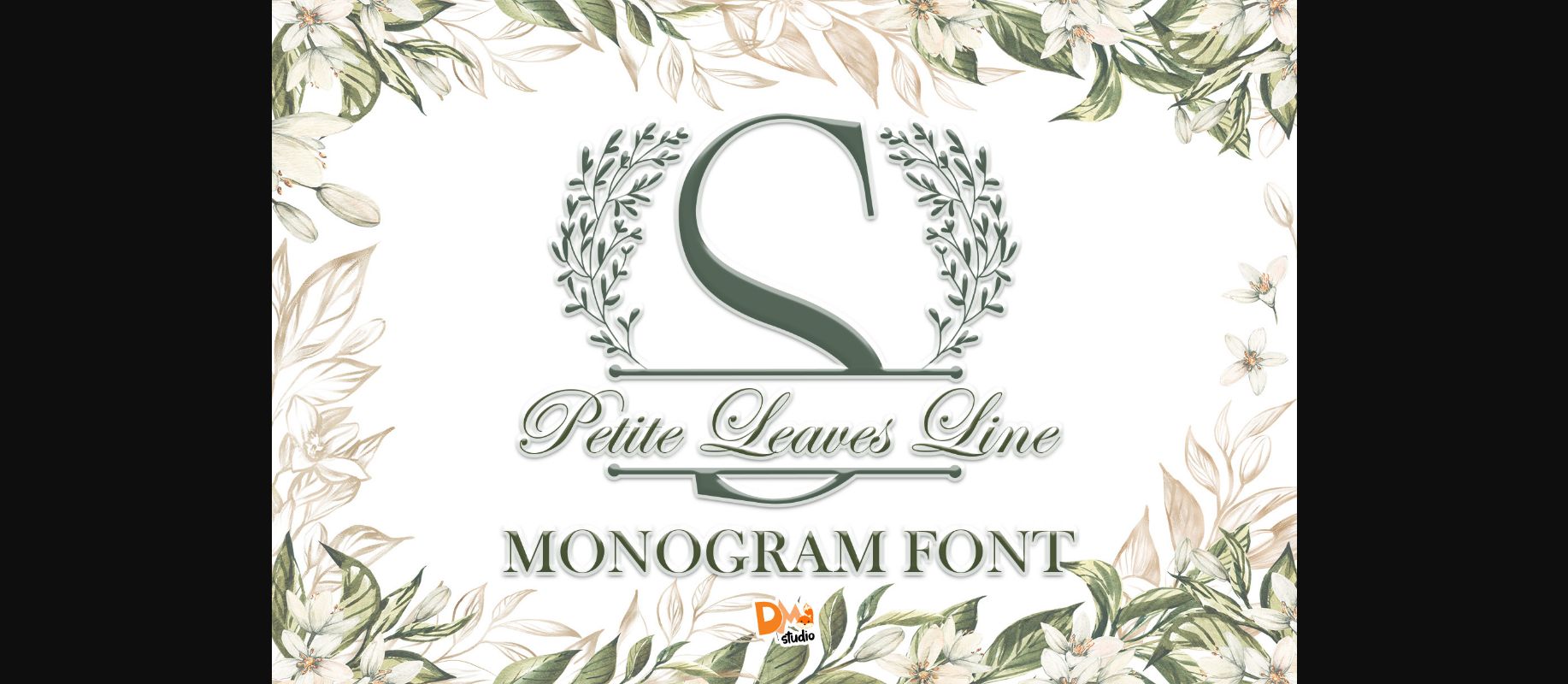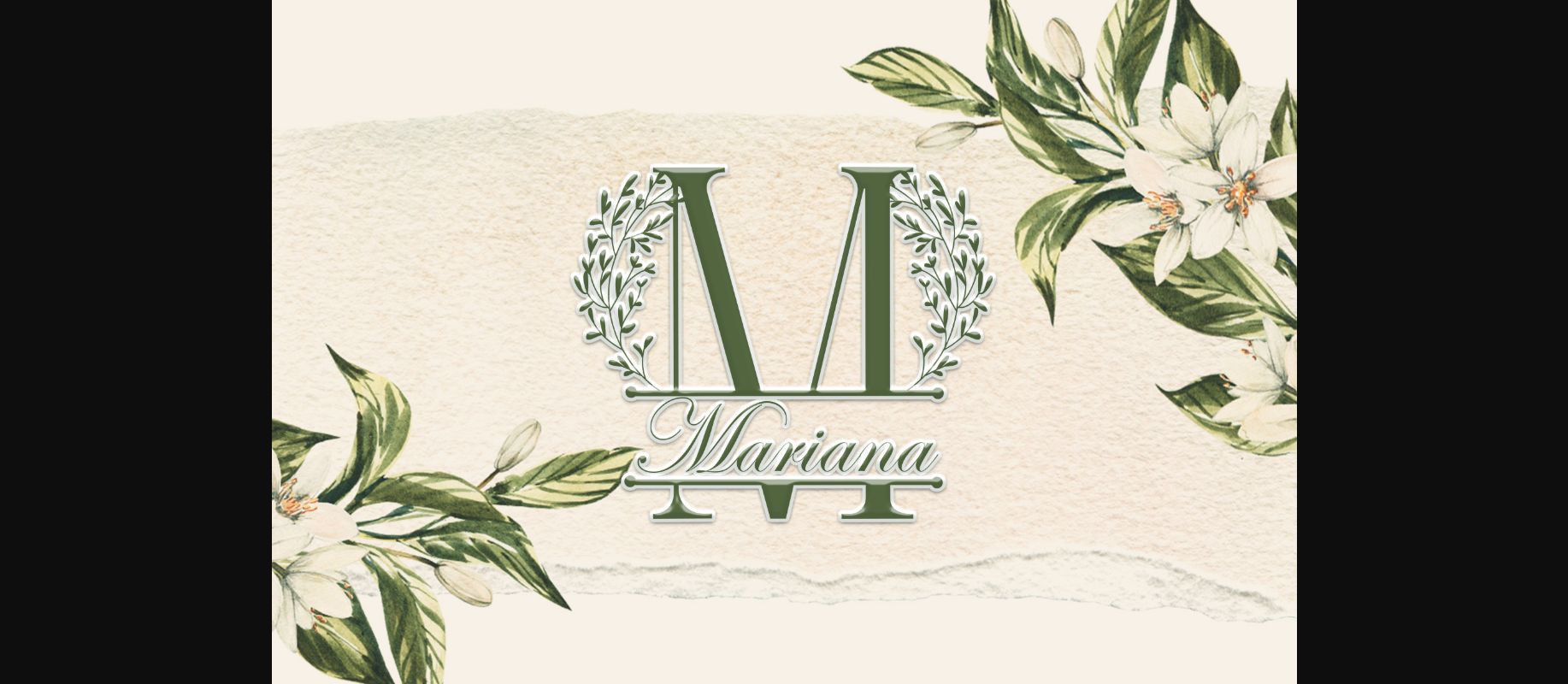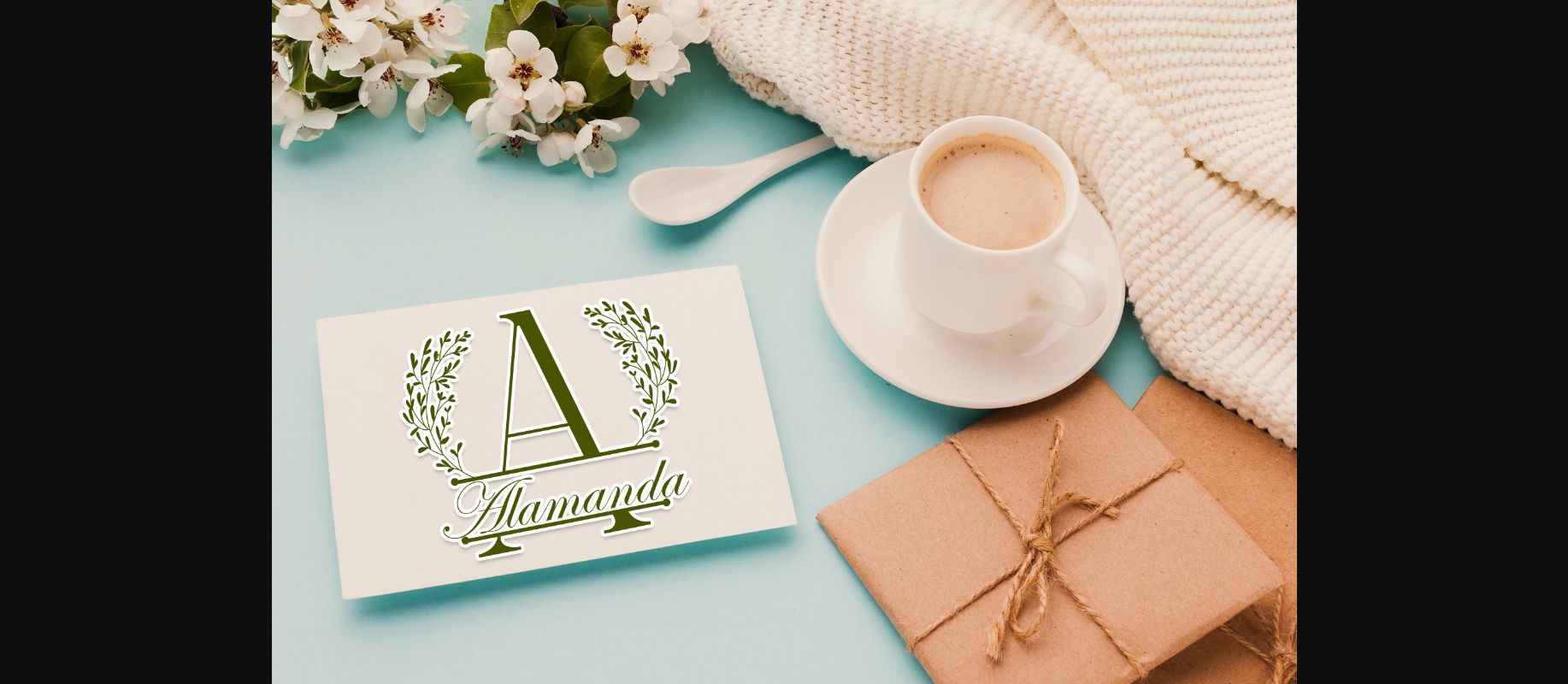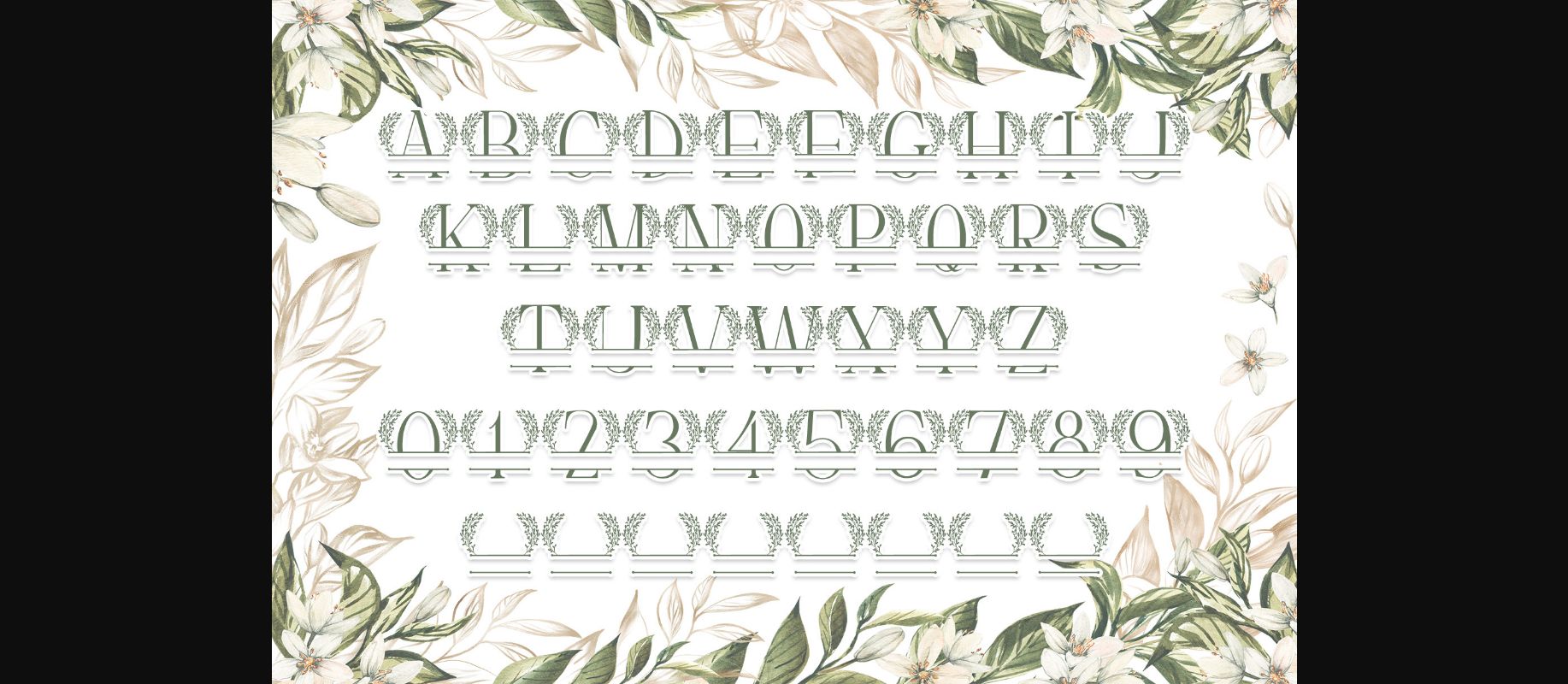
Petite Leaves Line Font
About Petite Leaves Line Font
Petite Leaves Line is a splendid decorative font featuring beautifully carves letters and cute leafy accents for each character. It will definitely be a great choice for your projects that need to stand out and impress!